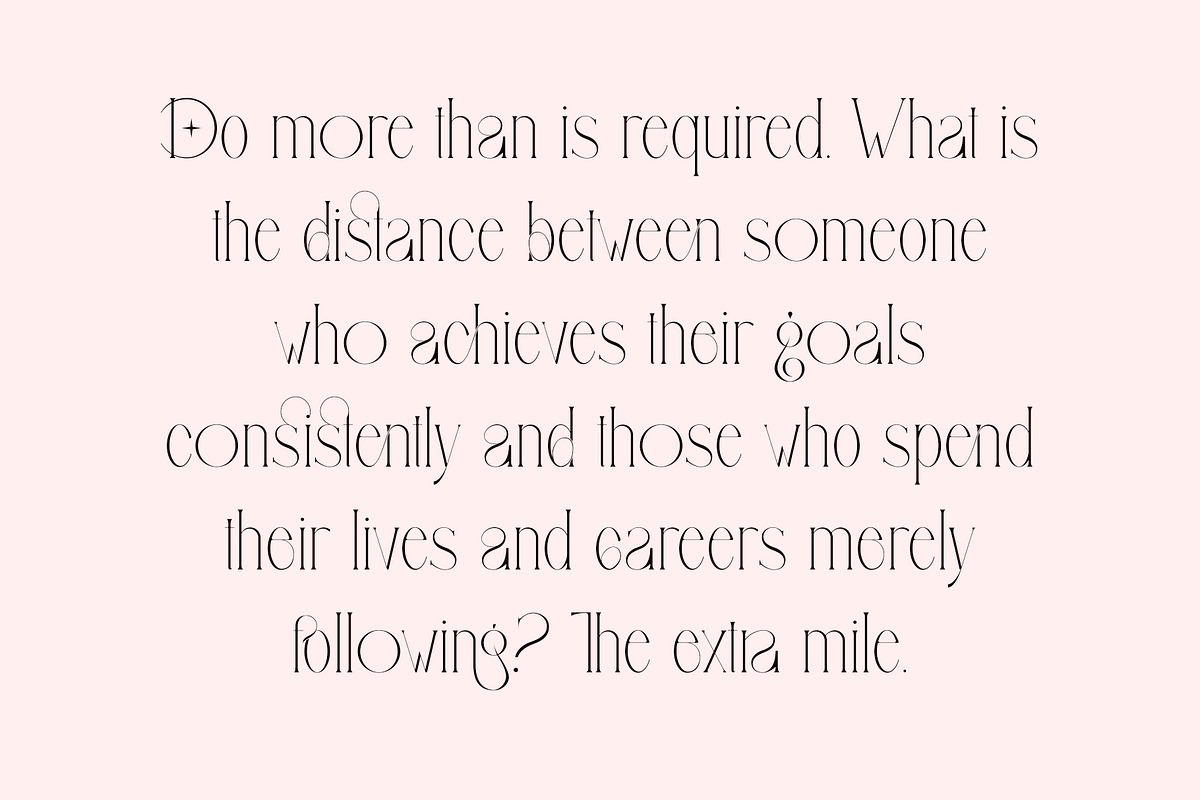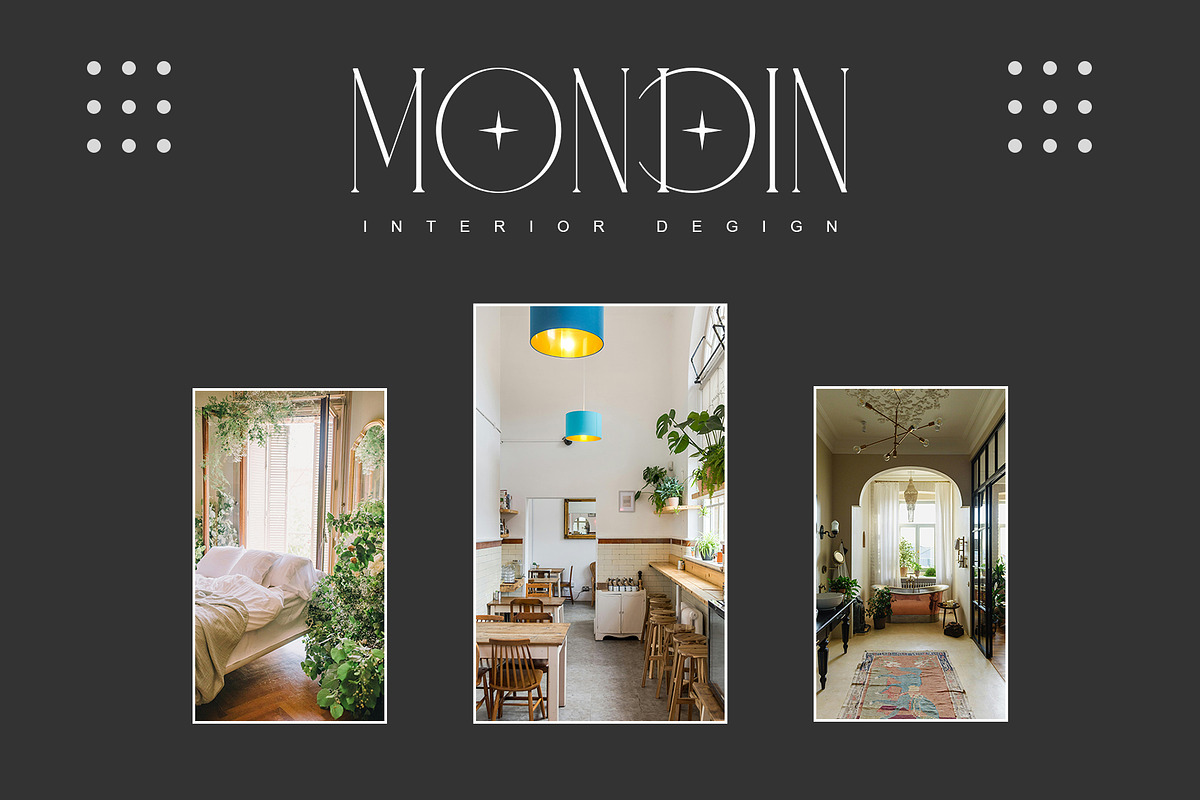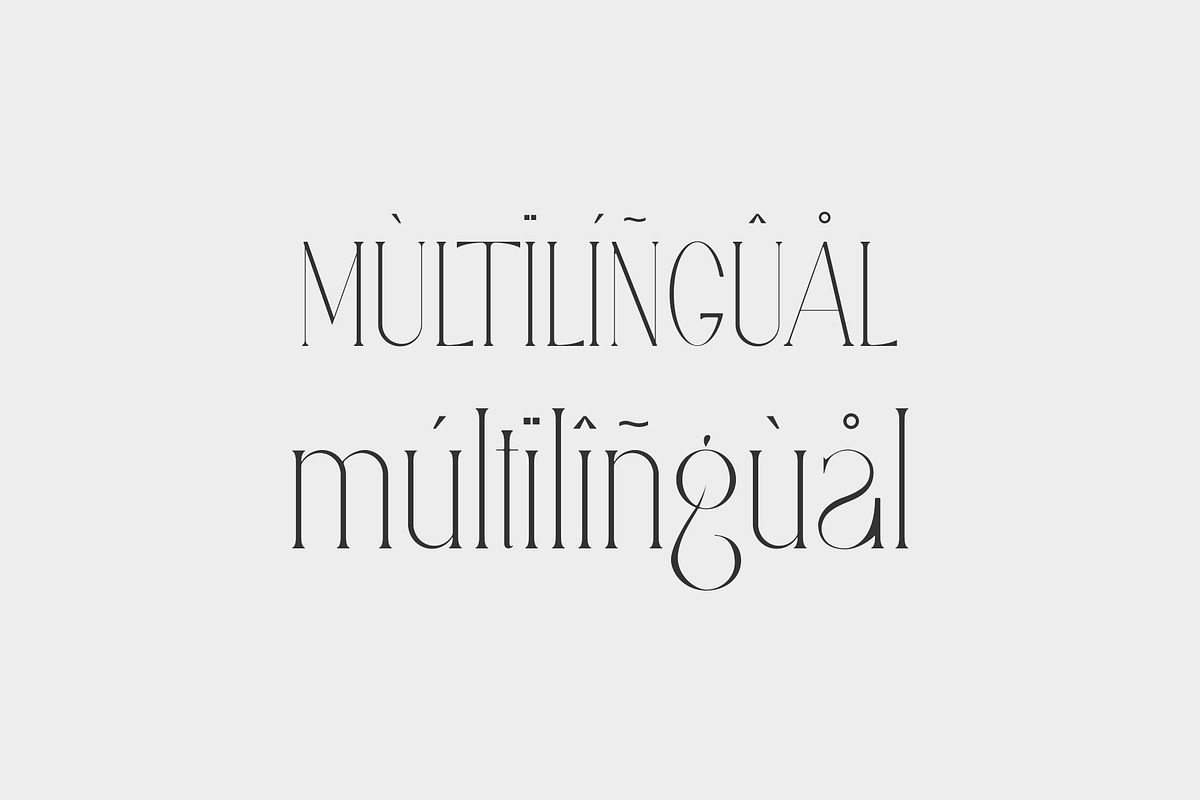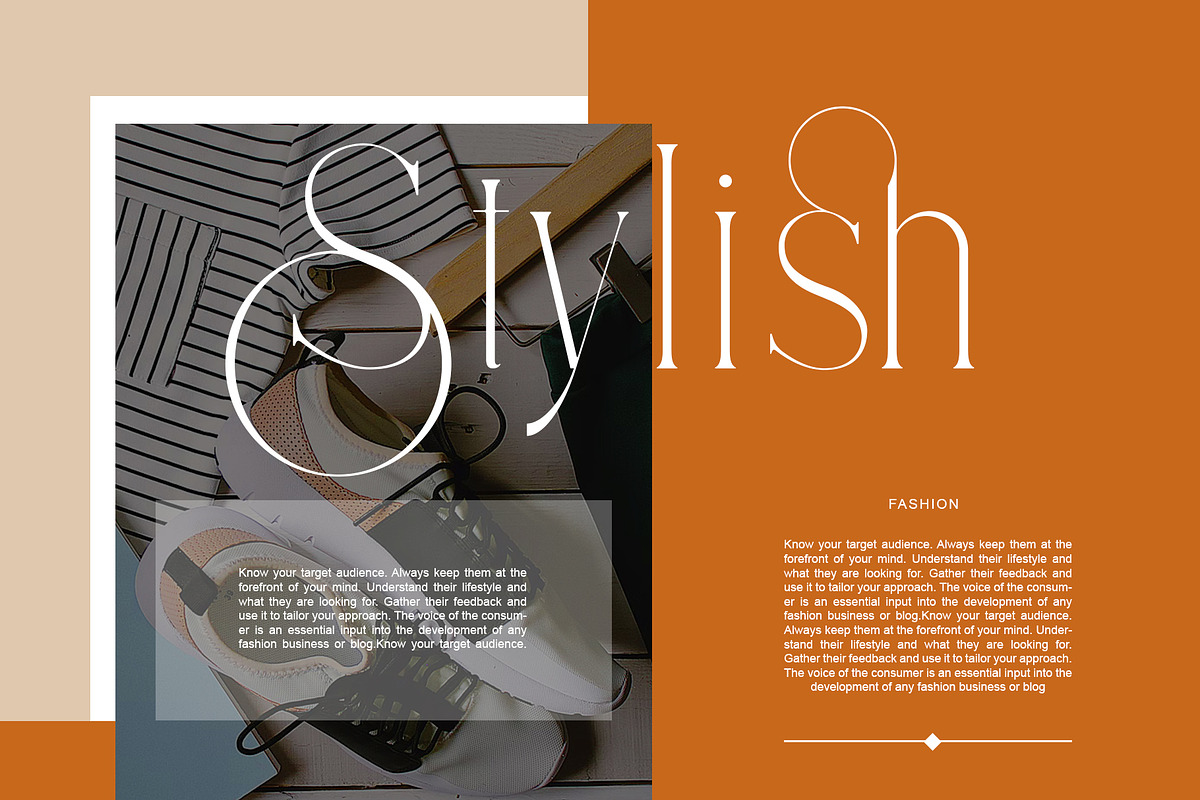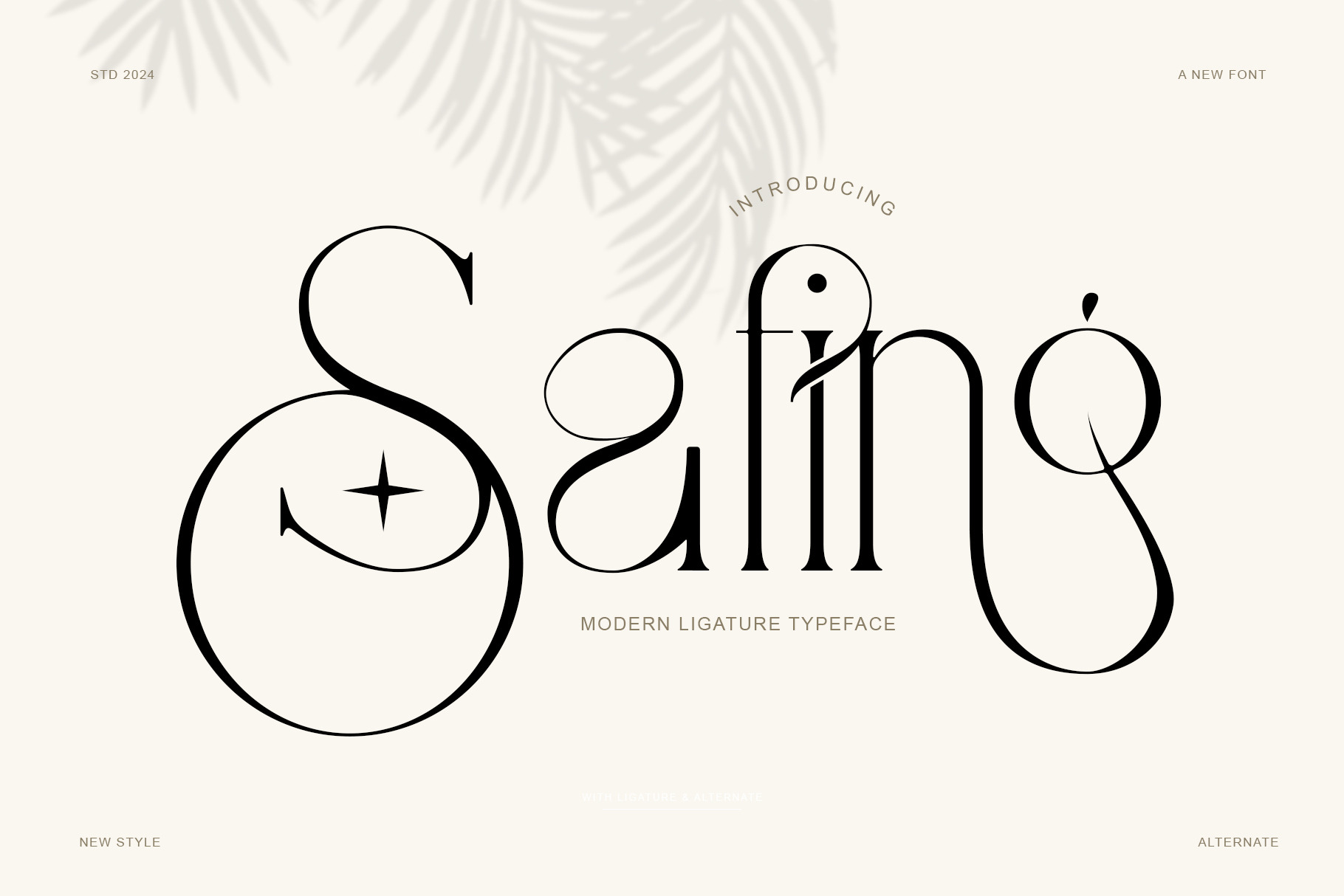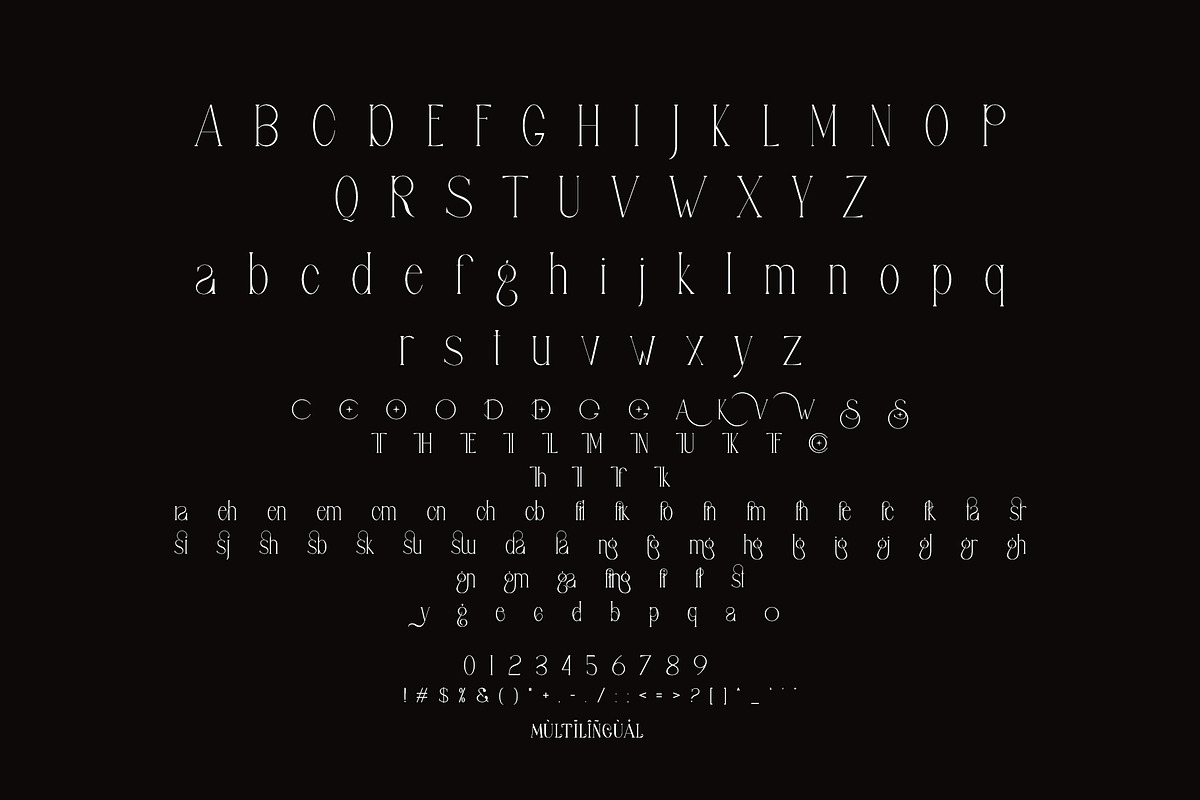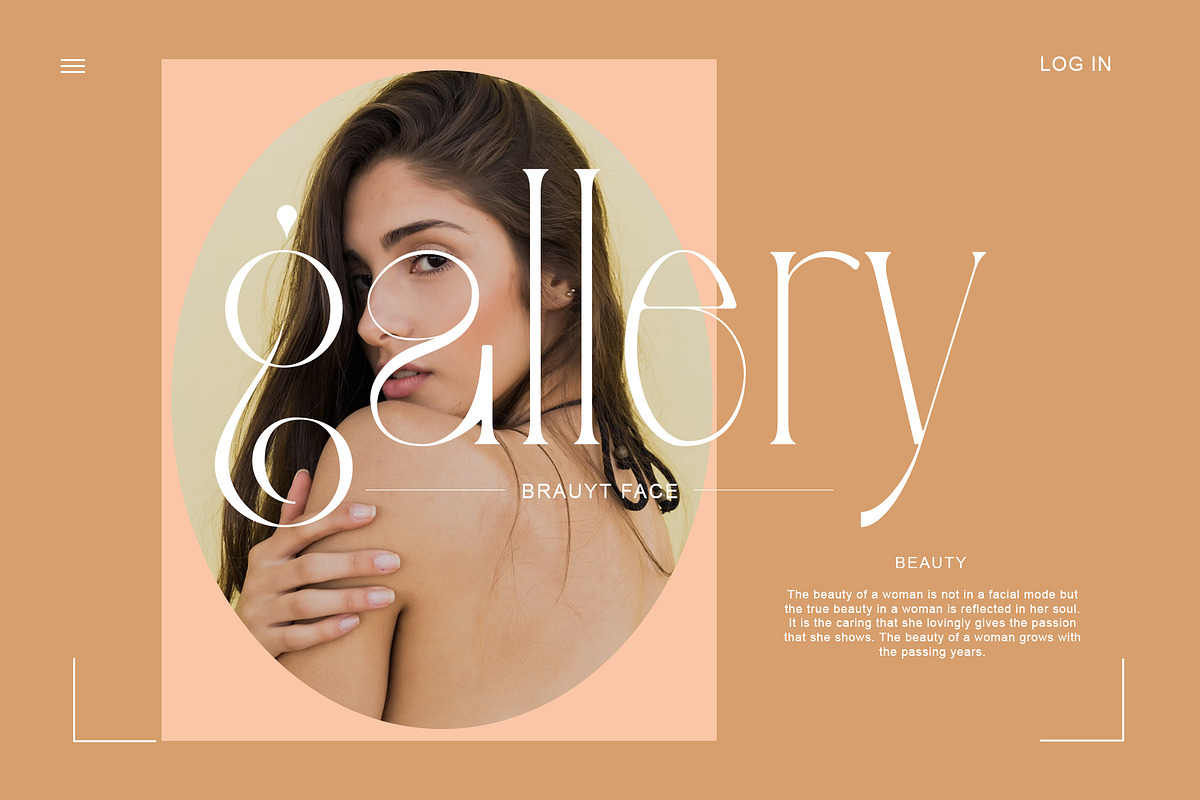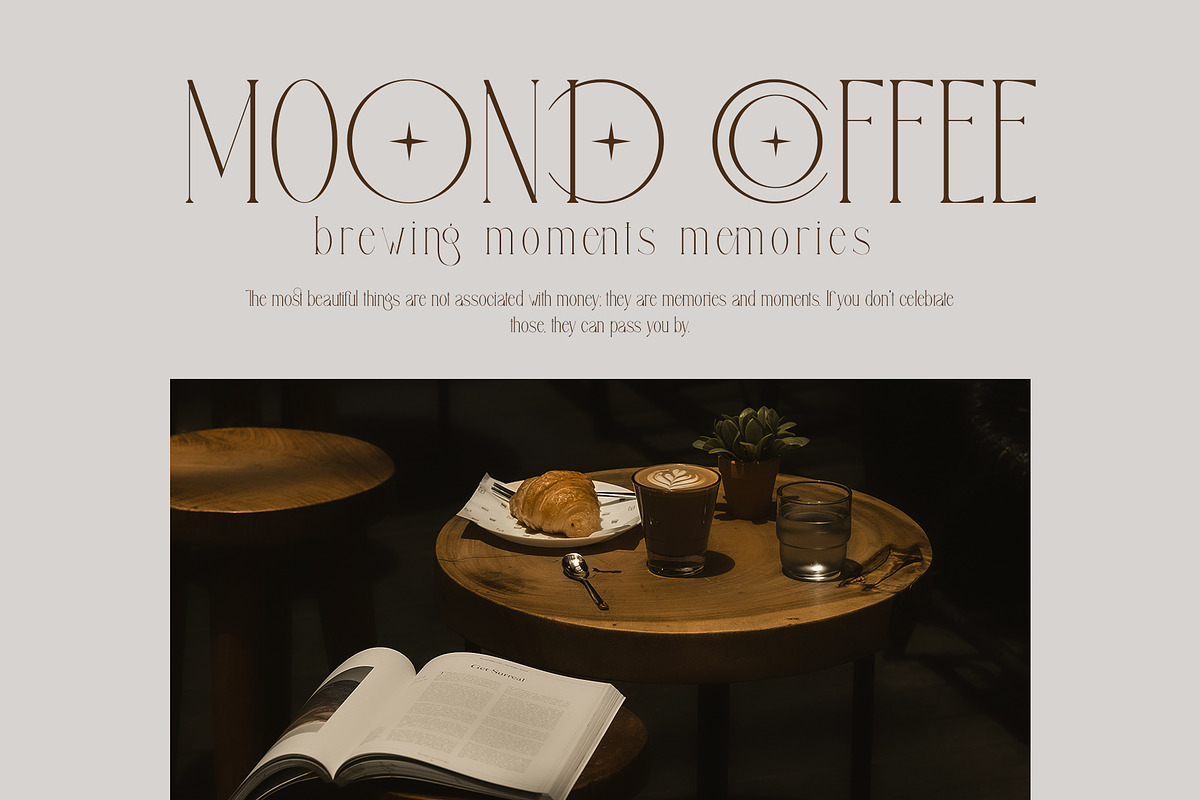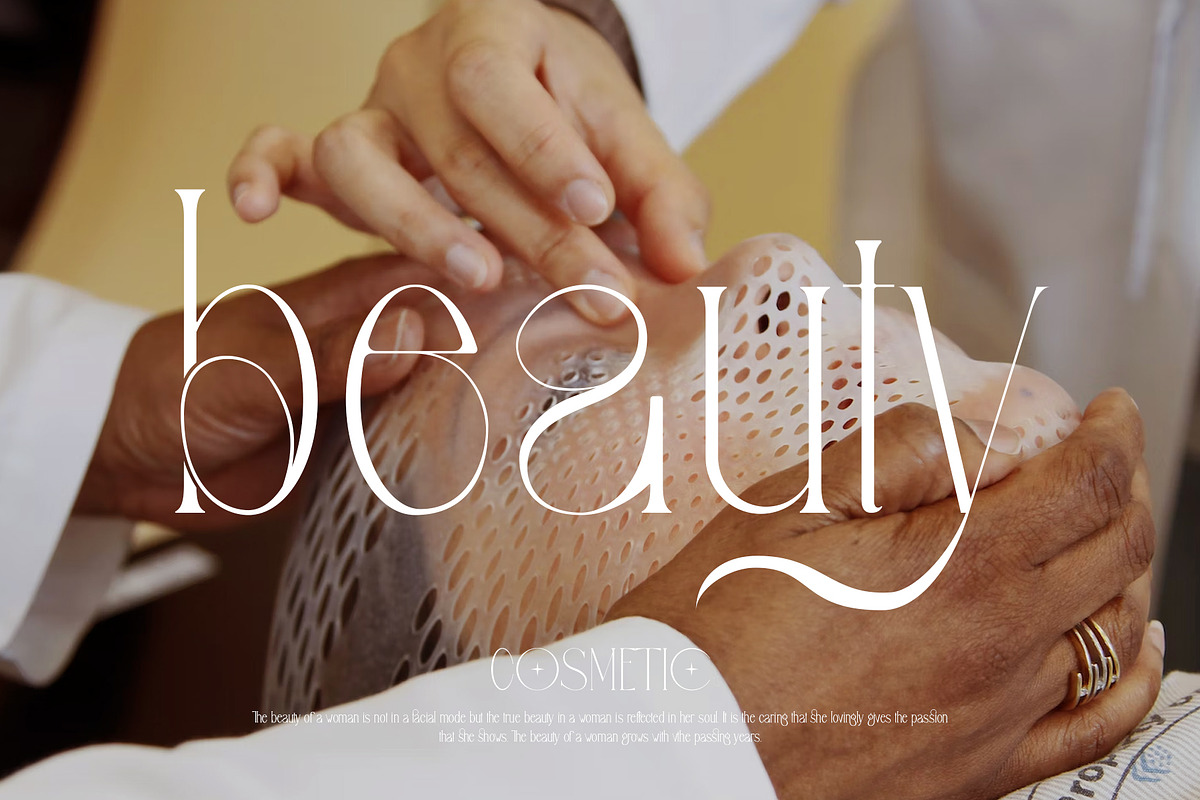
Safing ligature serif typeface
Safing is a elegant and classy serif typeface – This font is both modern and nostalgic and works great for logos, magazine, social media. Already matched up and ready to be used together for your next design! For those of you who are needing a touch of elegant, stylish, classy, chic and modernity for your designs, this font was created for you!
Safing was built with OpenType features and includes ligatures, numbers, punctuation, and it also supports other languages.